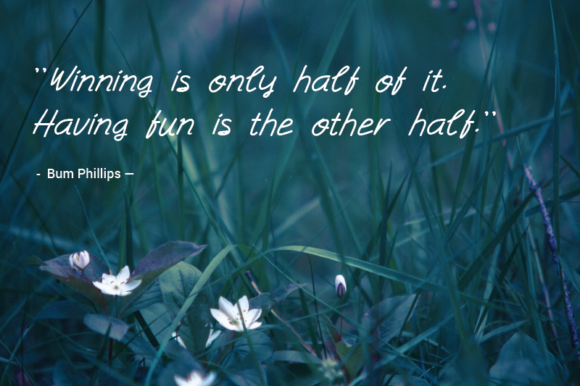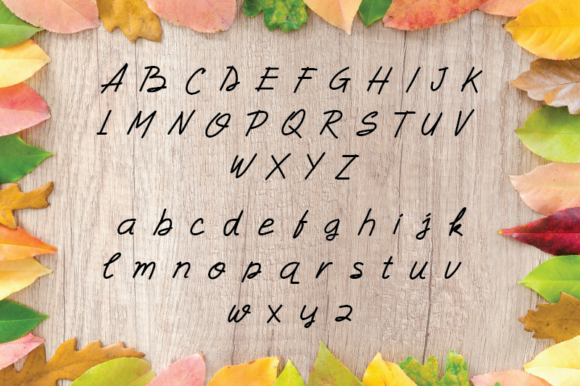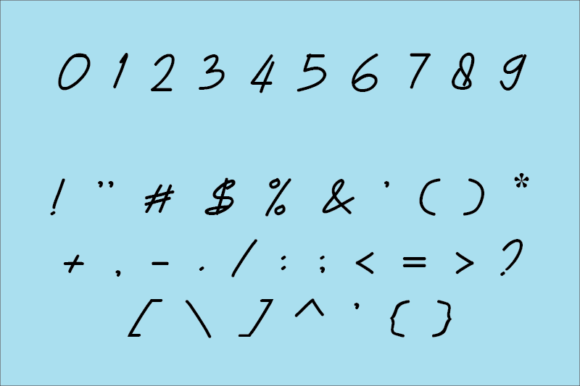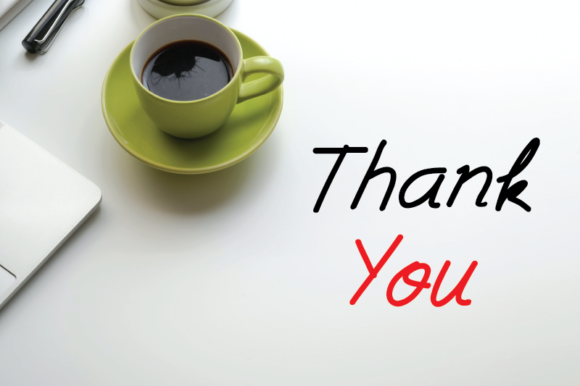
Discover the Elegance of Gitago Font: Elevate Your Designs with a Touch of Sophistication
Are you a designer or crafter looking for a font that embodies simplicity, elegance, and a touch of modernity? Look no further than Gitago Font. This exquisite handwritten font is designed to capture the hearts of creative professionals and DIY enthusiasts alike. With its perfect blend of traditional calligraphic influences and contemporary flair, Gitago is poised to become your new favorite font.
The Gitago Advantage: A Perfect Balance of Simplicity and Sophistication
Gitago Font is a masterclass in font design, offering a unique balance of simplicity and sophistication. Its clean lines, flowing curves, and carefully crafted letterforms make it an ideal choice for a wide range of design projects. Whether you’re working on a logo, branding materials, packaging, or digital content, Gitago’s versatility and charm are sure to shine through.
Key Features of Gitago Font
- Simple yet Exquisite: Gitago’s design is characterized by its simplicity, making it easy to read and versatile for various applications.
- Handwritten with Love: The font’s handwritten nature adds a personal touch, perfect for projects that require a bit of warmth and character.
- Contemporary and Fresh: Gitago’s modern take on traditional calligraphy ensures your designs feel current and engaging.
- Easy to Pair: Gitago’s neutral yet distinctive style makes it easy to pair with other fonts, allowing for endless creative possibilities.
Why Choose Gitago Font?
With so many fonts available, why should Gitago be your go-to choice? Here are a few compelling reasons:
- Uniqueness: Gitago offers a distinctive look that sets it apart from more common fonts, ensuring your designs stand out.
- Versatility: From digital content to print materials, Gitago’s flexibility makes it suitable for a wide range of projects.
- Emotional Connection: The font’s elegant and personal feel helps create an emotional connection with your audience, making your message more impactful.
Using Gitago Font in Your Projects
Gitago’s adaptability makes it perfect for various design applications. Here are some ideas to get you started:
- Branding and Logos: Use Gitago to create a memorable brand identity that exudes elegance and professionalism.
- Digital Content: Enhance your website, blog, or social media graphics with Gitago’s modern and clean aesthetic.
- Packaging: Add a touch of sophistication to your product packaging with Gitago’s distinctive style.
- Stationery: Elevate your business cards, letterheads, and invoices with Gitago’s refined look.
Gitago Font is more than just a typeface; it’s a design statement. Its simple yet exquisite design, combined with its contemporary feel, makes it an invaluable asset for designers and crafters looking to elevate their projects. Whether you’re aiming for a professional look or a personal touch, Gitago is sure to exceed your expectations. So, fall in love with Gitago and bring your projects to the highest levels of creativity and sophistication.
Experience the elegance of Gitago Font today and discover how it can transform your designs with its unique blend of tradition and modernity.